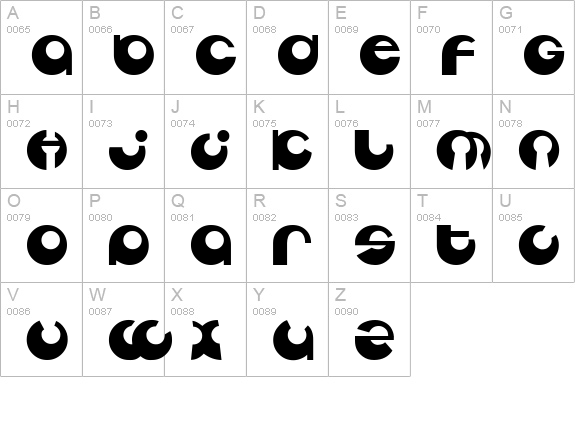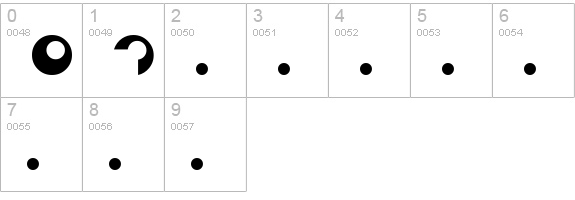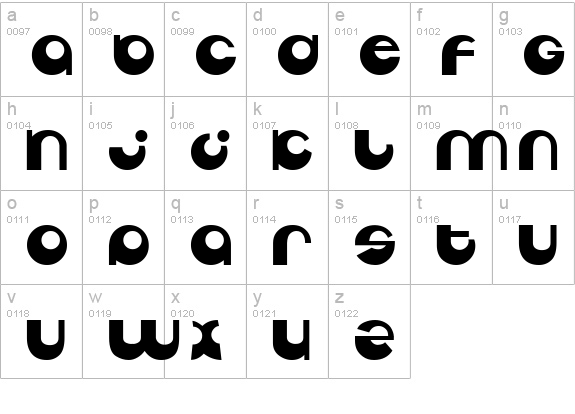
Tabun Font Details
Tabun font is a stunning display font that combines elegance with a touch of modernity. With its clean lines and unique letterforms, this font is perfect for any creative project that needs to make a bold statement. Whether you're designing a logo, creating a poster, or crafting a website, Tabun font will add a professional and stylish touch to your work. What sets Tabun font apart is not only its aesthetics but also the fact that it is available for free. Yes, you read that right! This incredible font can be freely downloaded at FontsMarket.com, a reputable online platform for high-quality fonts. Now you can enhance your designs without worrying about breaking the bank. When it comes to versatility, Tabun font has got you covered. It offers a wide range of weights and styles, making it suitable for various design purposes. Whether you prefer a bold and impactful look or a more subtle and refined one, Tabun font has the perfect option for you. The legibility of Tabun font is exceptional, ensuring that your message will be communicated clearly and effectively. Its carefully crafted letterforms guarantee readability even at smaller sizes, making it ideal for both print and digital mediums. What makes Tabun font truly special is the attention to detail. Every curve and stroke has been meticulously designed, resulting in a font that exudes sophistication and craftsmanship. Its smooth and balanced letterforms create a harmonious visual experience that is sure to captivate your audience. So, if you're searching for a font that combines elegance, modernity, and affordability, look no further than Tabun font. With its stunning design and the fact that it is freely available to download at FontsMarket.com, this font is a must-have for any designer or creative individual. Take your designs to the next level with Tabun font and make a lasting impression.